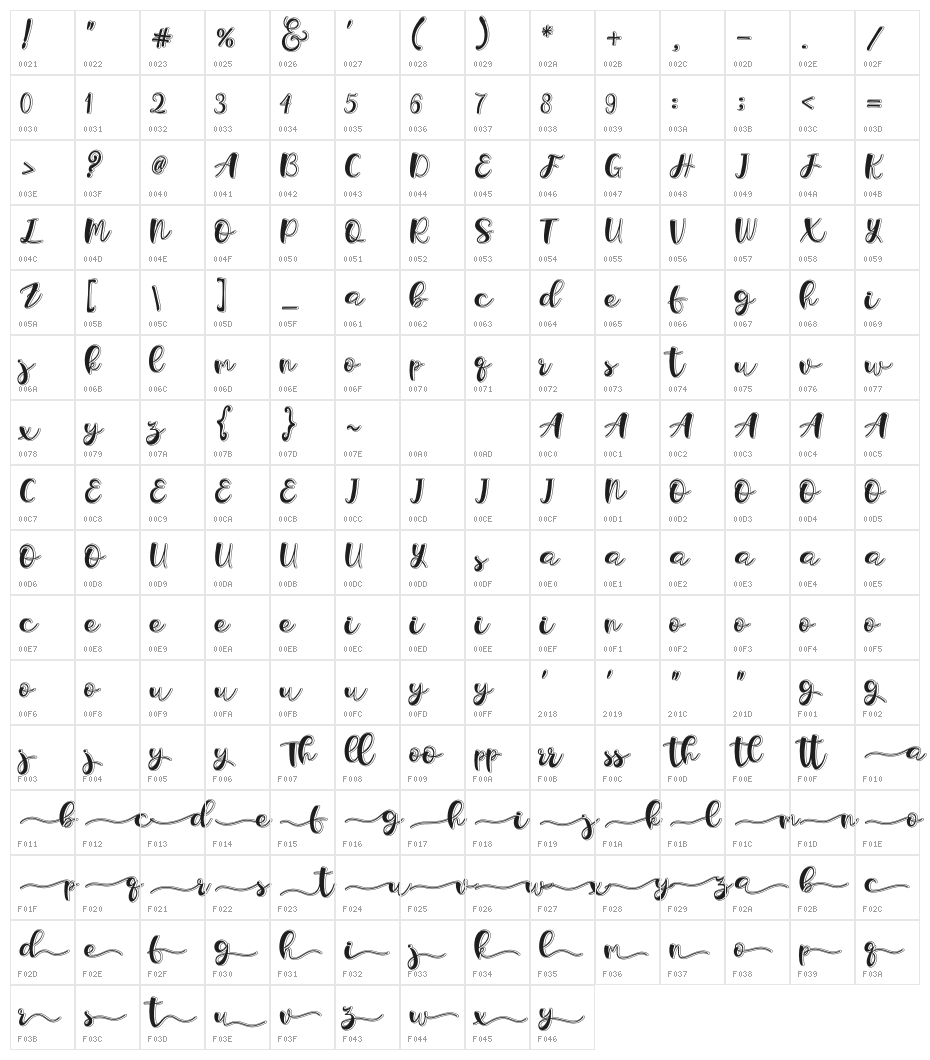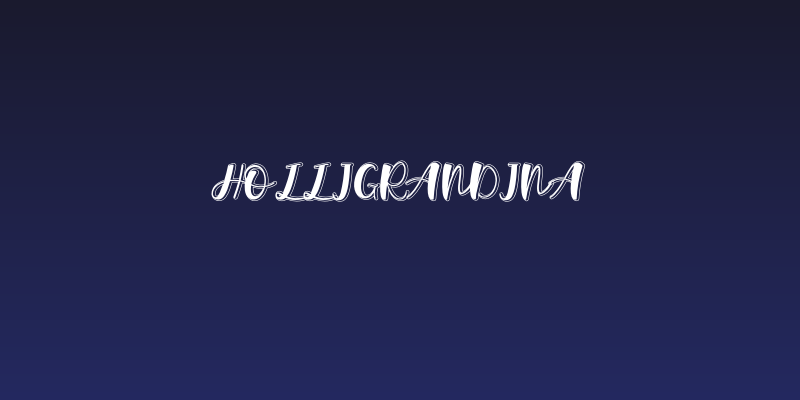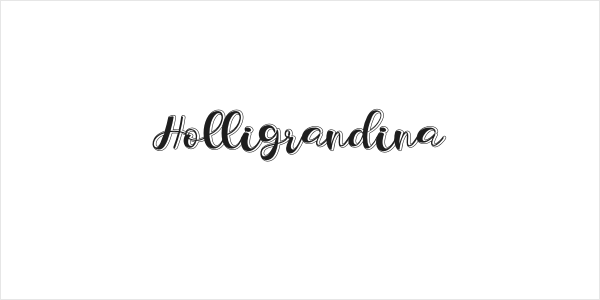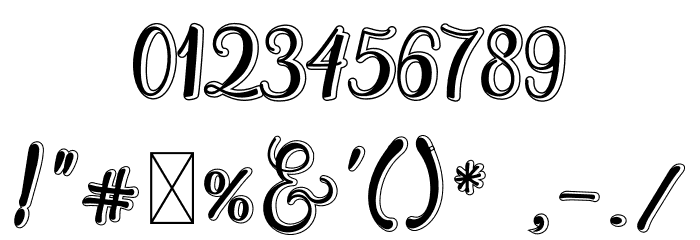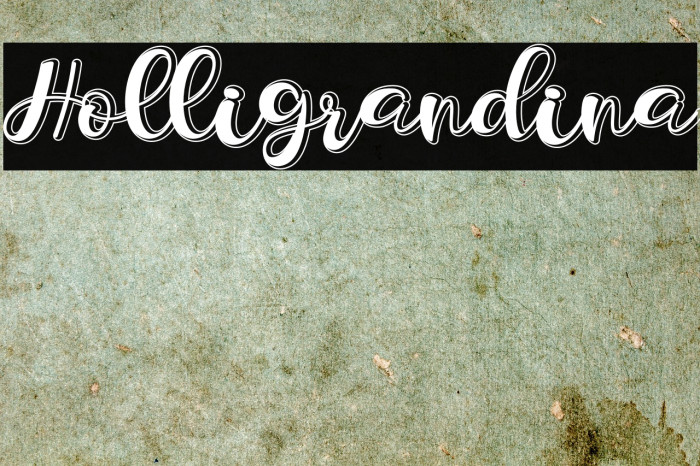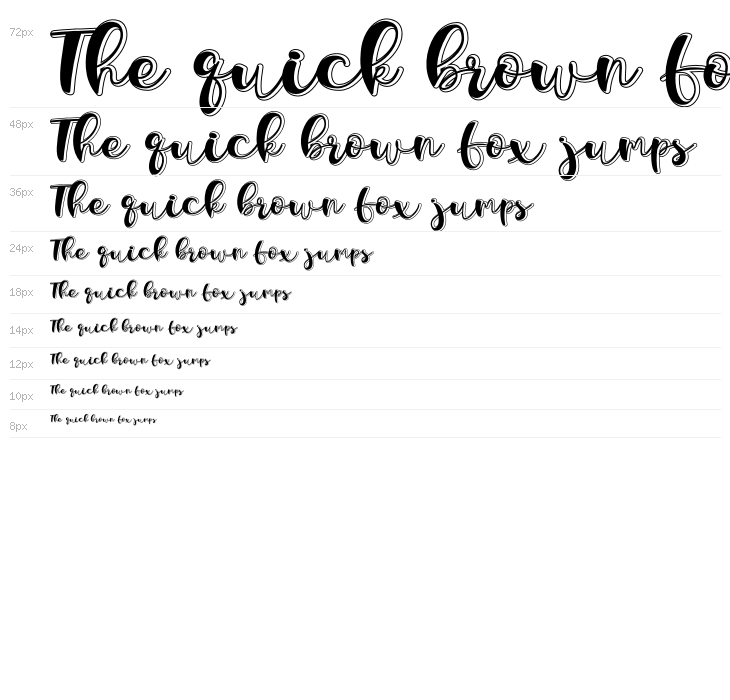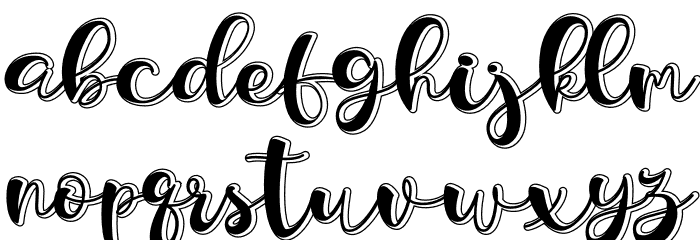
Holligrandina Font
Holligrandina Description
This font features a bold, flowing script style with a modern flair. The characters are interconnected, creating a seamless and elegant appearance. The uppercase letters are slightly more elaborate, with decorative swashes that enhance their visual appeal. The lowercase letters maintain a consistent flow, making them ideal for creating a cohesive look. The numbers and special characters are designed to match the overall style, ensuring uniformity across all text elements. The font's bold weight and high contrast between thick and thin strokes make it stand out, while the character spacing is relatively tight, adding to its dynamic and lively feel.